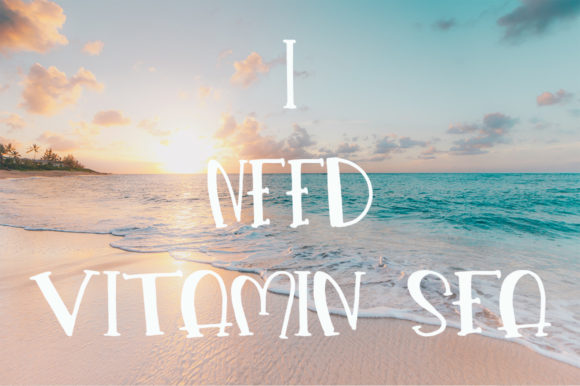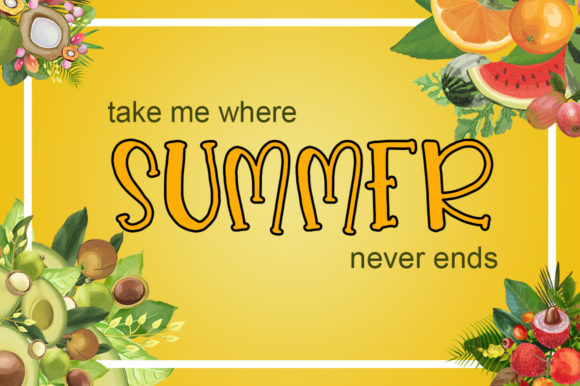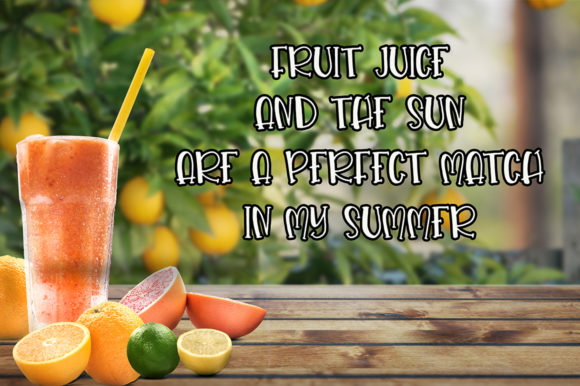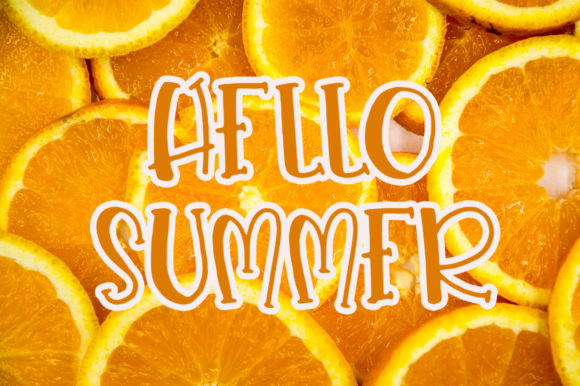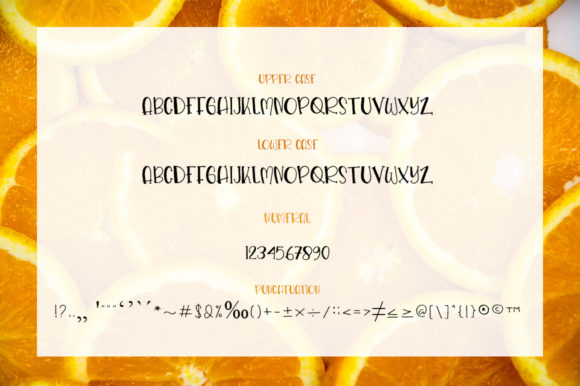
Fruit Punch Font: The Perfect Addition to Your Creative Projects
Are you looking for a font that can add a touch of playfulness and friendliness to your designs? Look no further than the Fruit Punch Font! This adorable display font is perfect for a variety of creative projects, from Instagram posts to DIY crafts. In this article, we’ll dive into the features and benefits of the Fruit Punch Font and explore how it can elevate your designs.
What is Fruit Punch Font?
Fruit Punch Font is a cute and casual display font that exudes a friendly feel. Its unique and charming design makes it perfect for a wide range of applications, from social media graphics to craft projects. Whether you’re a designer, crafter, or simply a DIY enthusiast, this font is sure to delight.
Key Features of Fruit Punch Font
- Cute and Casual Design: Fruit Punch Font has a playful and informal design that’s perfect for creating fun and engaging graphics.
- Friendly Feel: The font’s friendly feel makes it ideal for designs that require a personal touch.
- Display Font: Fruit Punch Font is a display font, making it perfect for headlines, titles, and other prominent text elements.
- Versatile: This font can be used for a wide range of projects, from Instagram posts to craft projects.
Uses for Fruit Punch Font
Fruit Punch Font is a versatile font that can be used for a variety of creative projects. Here are some ideas to get you started:
- Instagram Graphics: Add a touch of playfulness to your Instagram posts with Fruit Punch Font. Use it to create eye-catching headlines, captions, and quotes.
- DIY Projects: Fruit Punch Font is perfect for DIY projects, such as crafting, scrapbooking, and paper crafting. Use it to add a personal touch to your projects.
- Calligraphy Scripts: Fruit Punch Font can be used to create beautiful calligraphy scripts for special occasions, such as weddings, birthdays, and holidays.
- Signs and Banners: Use Fruit Punch Font to create eye-catching signs and banners for parties, events, and promotions.
Benefits of Using Fruit Punch Font
There are many benefits to using Fruit Punch Font in your creative projects. Here are a few:
- Easy to Read: Fruit Punch Font is clear and easy to read, making it perfect for designs that require a lot of text.
- Unique Design: Fruit Punch Font has a unique and charming design that will set your designs apart from the rest.
- Time-Saving: With Fruit Punch Font, you can create professional-looking designs in no time. Its friendly feel and playful design make it easy to use and customize.
Tips for Using Fruit Punch Font
Here are some tips for using Fruit Punch Font in your creative projects:
- Pair it with Other Fonts: Fruit Punch Font can be paired with other fonts to create a unique and visually appealing design.
- Experiment with Colors: Fruit Punch Font looks great in a variety of colors. Experiment with different colors to find the perfect combination for your design.
- Use it for Headlines: Fruit Punch Font is perfect for headlines and titles. Use it to add a touch of personality to your designs.
- Customize it: Fruit Punch Font can be customized to fit your design needs. Experiment with different sizes, styles, and colors to create a unique look.
Fruit Punch Font is a versatile and charming font that’s perfect for a wide range of creative projects. Its friendly feel and playful design make it easy to use and customize. Whether you’re a designer, crafter, or simply a DIY enthusiast, Fruit Punch Font is sure to delight. With its ease of use, unique design, and cost-effectiveness, Fruit Punch Font is the perfect addition to your creative toolkit.